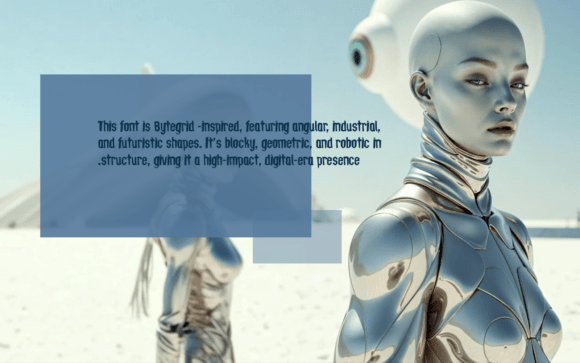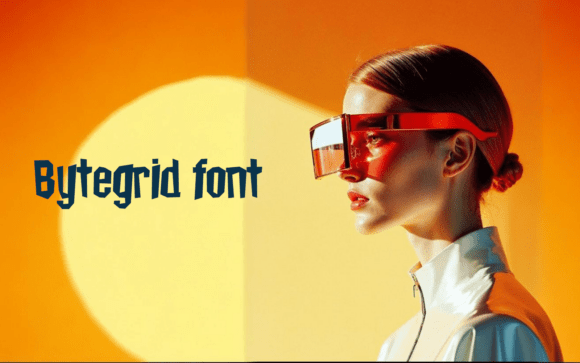
Introducing Bytegrid: The Revolutionary Font for Innovation and Technology
In the rapidly evolving world of digital design, the right typography can make all the difference. For designers and crafters looking to push the boundaries of innovation, a font that embodies the precision, power, and cutting-edge spirit of technology is essential. This is where Bytegrid comes into play – a game-changing font specifically designed for those who dare to venture into the frontiers of innovation.
The Essence of Bytegrid
Bytegrid is not just a font; it’s a statement. Its sharp edges and structured design are meticulously crafted to reflect the accuracy and efficiency of code, alongside the formidable power of machines. This unique blend makes Bytegrid the perfect choice for projects that require a bold, futuristic aesthetic. Whether you’re working on a gaming project, crafting a cyber brand, embarking on an adventurous design journey, or creating high-tech visuals that demand attention, Bytegrid is your go-to font.
Key Features of Bytegrid
• Sharp Edges and Structured Design: These characteristics give Bytegrid its distinctive, cutting-edge look, making it instantly recognizable.
• Precision and Power: The font’s design elements are inspired by the meticulous nature of coding and the robust power of technology, ensuring your message is conveyed with authority.
• Versatility: Bytegrid is incredibly versatile, suitable for a wide range of applications from digital interfaces to print materials, and everything in between.
• Attention-Grabbing: In a world filled with visual noise, Bytegrid’s bold presence ensures your message doesn’t just transmit – it resonates.
Applications of Bytegrid
The potential applications for Bytegrid are vast and varied. Here are some of the most compelling uses for this revolutionary font:
• Gaming: Give your game titles, menus, and in-game text a competitive edge with Bytegrid’s futuristic and dynamic feel.
• Cyber Branding: Establish a strong, forward-thinking brand identity with Bytegrid, perfect for tech startups and established companies looking to rebrand.
• Adventure and Exploration: Use Bytegrid to add a sense of excitement and discovery to your adventure-themed projects, be it for travel brochures, website headers, or promotional materials.
• High-Tech Visuals: From tech product launches to innovative gadget showcases, Bytegrid helps you create visuals that are not only informative but also captivating.
Why Choose Bytegrid?
In choosing Bytegrid, you’re not just selecting a font; you’re embracing a design philosophy that prioritizes innovation, precision, and impact. Here are a few reasons why Bytegrid stands out:
• Uniqueness: Bytegrid offers a fresh perspective on futuristic typography, setting your work apart from the conventional.
• Legibility: Despite its bold and edgy design, Bytegrid maintains high legibility, ensuring your message is clear and accessible.
• Customization: The font comes with a range of weights and styles, allowing for extensive customization to fit your project’s specific needs.
Bytegrid is more than just a font – it’s a tool for visionaries, a canvas for creatives, and a voice for innovators. By integrating Bytegrid into your design projects, you’re not just making a statement; you’re making a bold declaration of your commitment to innovation and excellence. Let your message transmit in bold with Bytegrid, and step into the future of design today.
Whether you’re a seasoned designer or a passionate crafter, Bytegrid invites you to explore new horizons of creativity and push the limits of what’s possible. Join the frontier of innovation with Bytegrid – where precision meets power, and design knows no bounds.